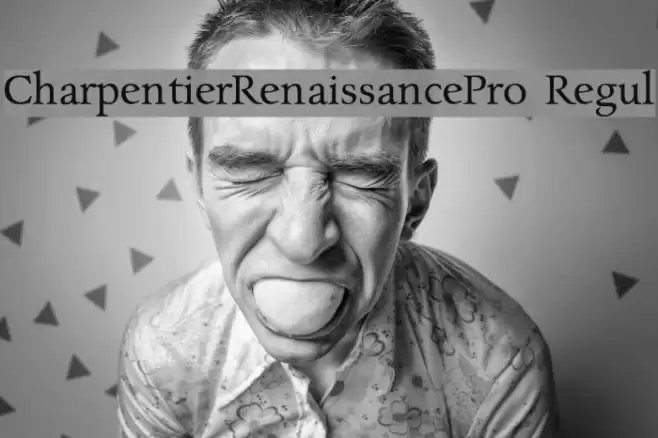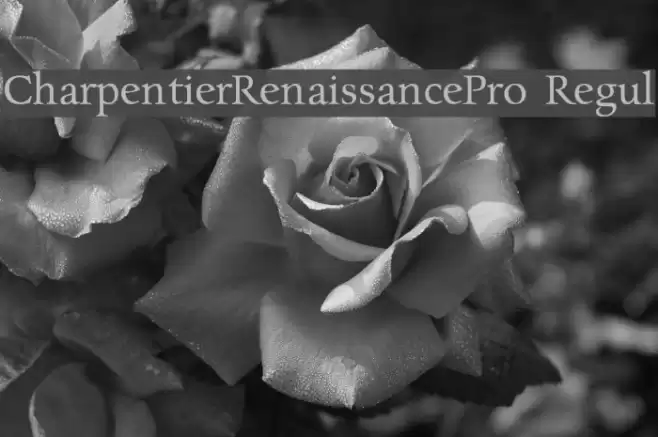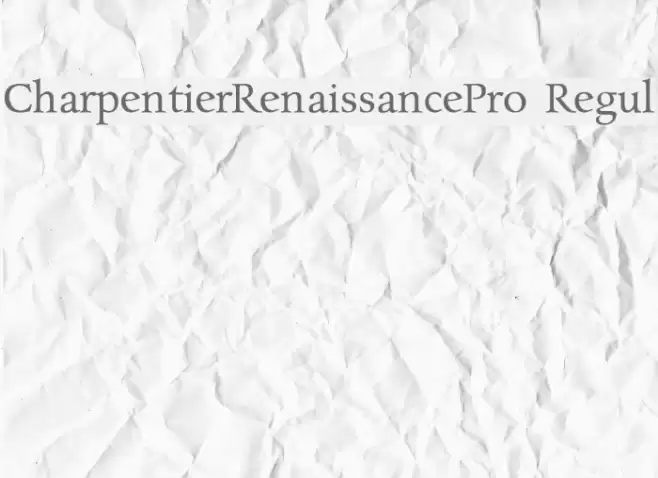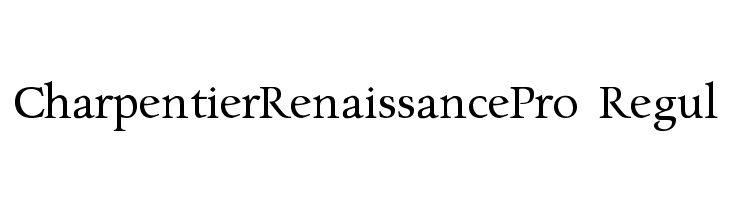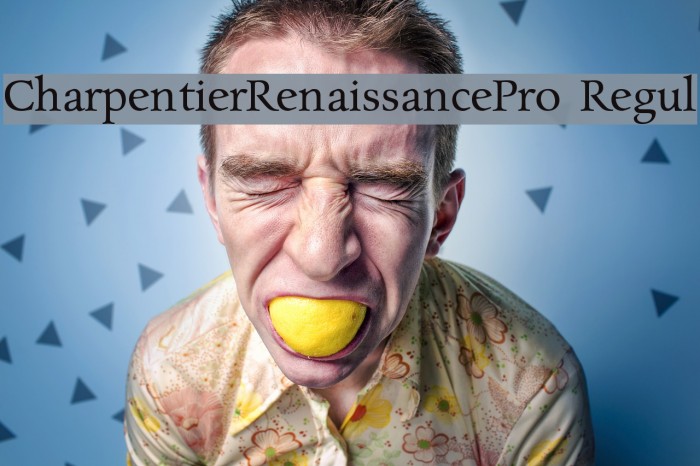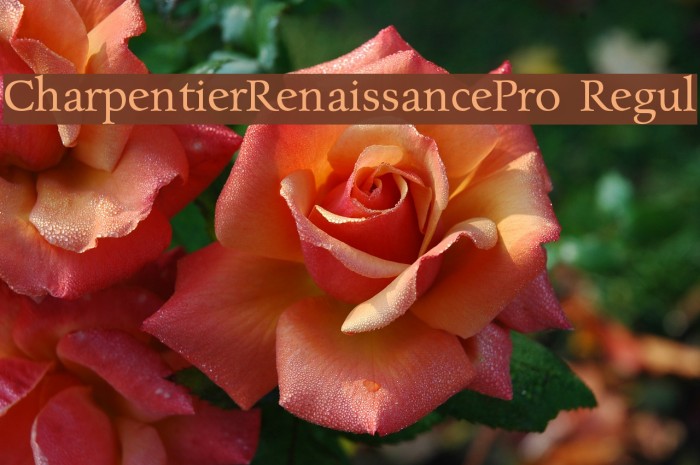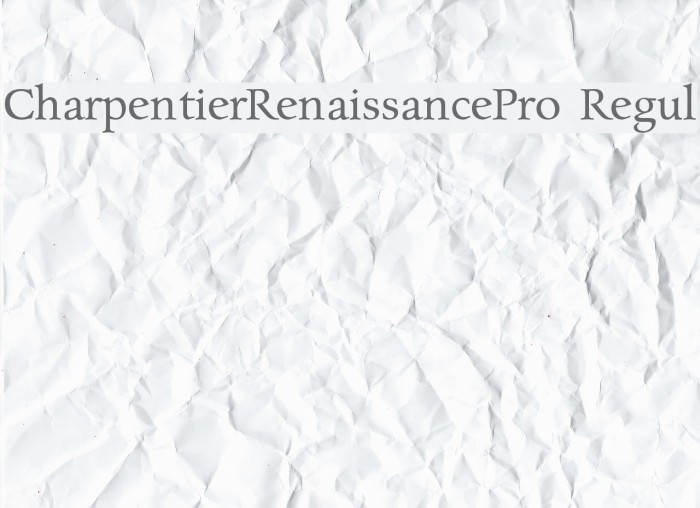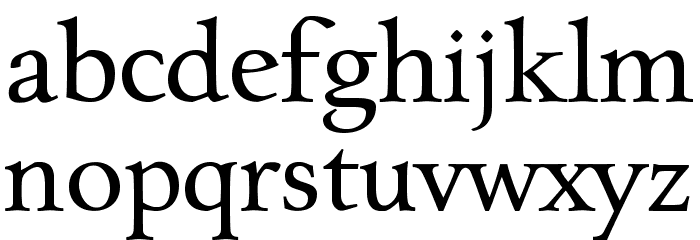
CharpentierRenaissancePro-Regul Font
CharpentierRenaissancePro-Regul Description
This font embodies a classic and elegant style, reminiscent of Renaissance typography. It features distinct serifs and a balanced proportion, giving it a timeless and sophisticated appearance. The uppercase letters are stately and well-defined, while the lowercase letters maintain a harmonious flow. The overall design is characterized by moderate contrast in stroke thickness, adding to its readability and aesthetic appeal. The font's refined curves and sharp serifs make it suitable for projects that require a touch of historical elegance.
A classic serif font with Renaissance-inspired elegance and moderate contrast from Uncategorized fonts.
- Proposed Projects: Ideal for book covers, historical documents, formal invitations, and branding that requires a classic touch.
- Overall Style: Classic